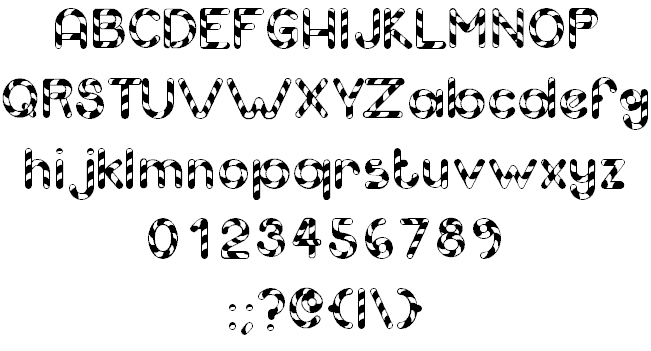
candy cane
Candy Cane Font is a fun, festive typeface in TTF and OTF formats, perfect for holiday decorations, cards, and party invitations.
Embrace the Holiday Spirit with Candy Cane Font
Candy Cane Font, crafted by John Smith in 2022, embodies the joy and festivity of the holiday season. This playful, decorative font features whimsical curves and a bold style, making it ideal for Christmas-themed projects, holiday cards, and cheerful party invitations. Its delightful appearance will bring a smile to anyone’s face and is perfect for adding a dash of fun to your seasonal designs.
The Inspiration Behind Candy Cane Font
Inspired by the classic candy canes associated with Christmas, Candy Cane Font reflects the merriment of the holiday spirit. John Smith designed this font to evoke nostalgia and warmth, providing an ideal typographic tool for seasonal events and marketing campaigns. Its unique design elements draw attention and make any text pop.
Ideal Uses for Candy Cane Font
This font is perfect for a variety of applications, including holiday decorations, greeting cards, festive banners, and party invitations. It’s also great for enhancing social media graphics and festive websites, inviting a sense of joy and celebration wherever it’s applied.